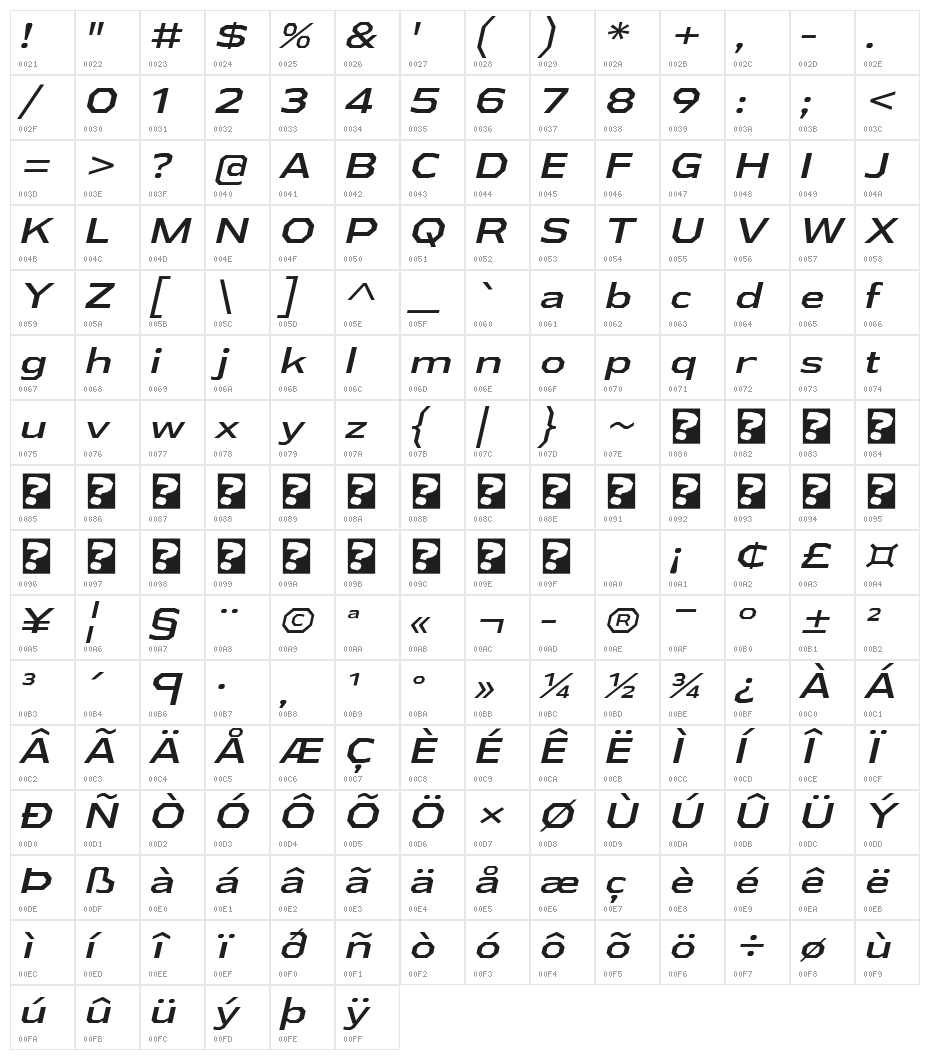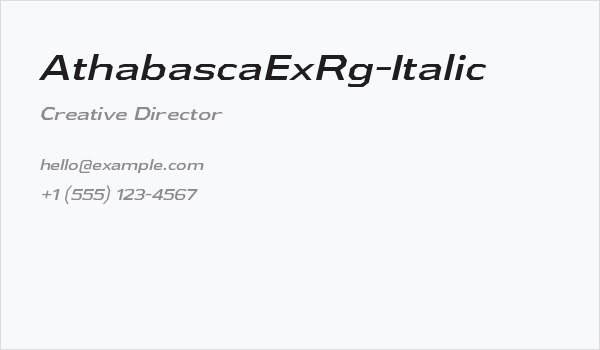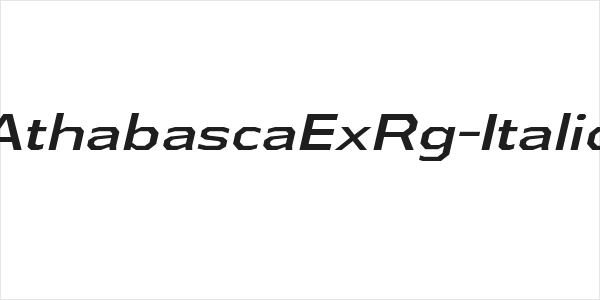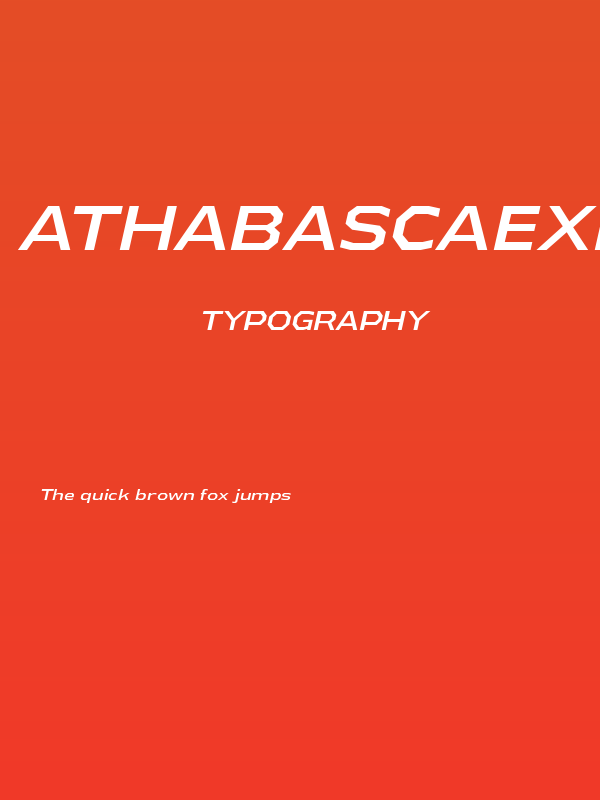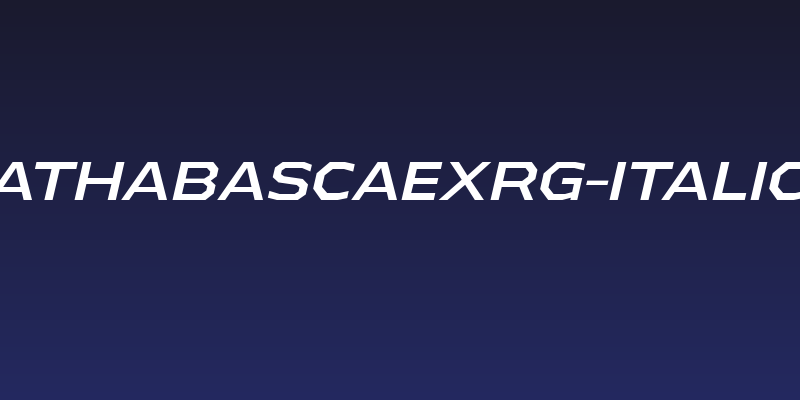
AthabascaExRg-Italic Font
AthabascaExRg-Italic Description
This font features a modern and dynamic design with a distinct italic slant, giving it a sense of motion and energy. The characters are angular and geometric, with sharp edges and a consistent stroke width that maintains clarity and readability. The uppercase letters are bold and commanding, while the lowercase letters retain a similar angular style, ensuring uniformity across the typeface. The numerals are clear and distinct, matching the overall aesthetic of the font. Special characters are well-integrated, maintaining the font's cohesive look. This typeface is ideal for projects that require a contemporary and assertive appearance.
| Use Case | Logos, Headlines, Branding |
| Proposed Projects | Ideal for branding, sports team logos, tech-related designs, and modern advertising. |